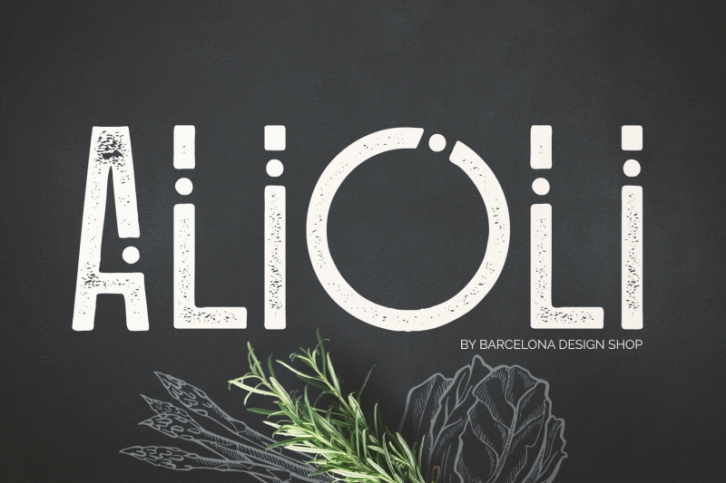
Alioli Texture Geometric Font Download
Alioli Font
Alioli - a geometric sans serif font consisting of uppercase and lowercase letters, punctuation and numbers. Multilingual support.